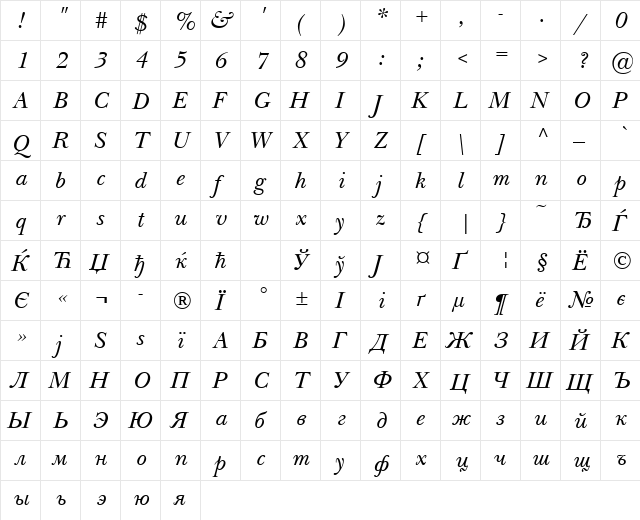
NewBaskervilleCTT Italic
Design Context for NewBaskervilleCTT Typeface
NewBaskervilleCTT is a composed and adaptable typeface that performs quietly and consistently across a wide range of design contexts. The dynamic lean of this cut emphasises speed and emphasis in any layout.
Pro Tip: Use NewBaskervilleCTT for emphasis, pull quotes, and subheadings where its slanted energy can add rhythm to the layout.